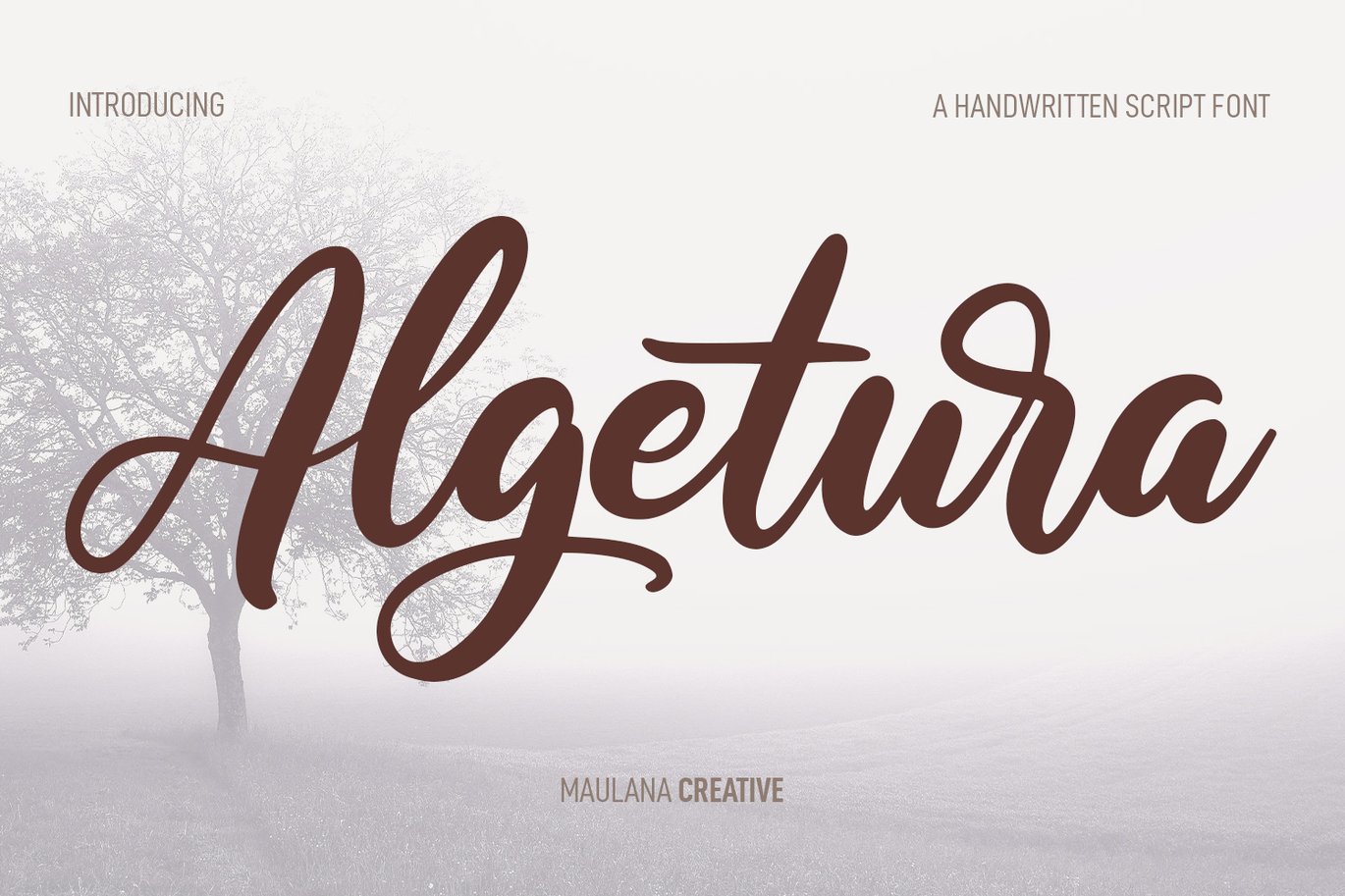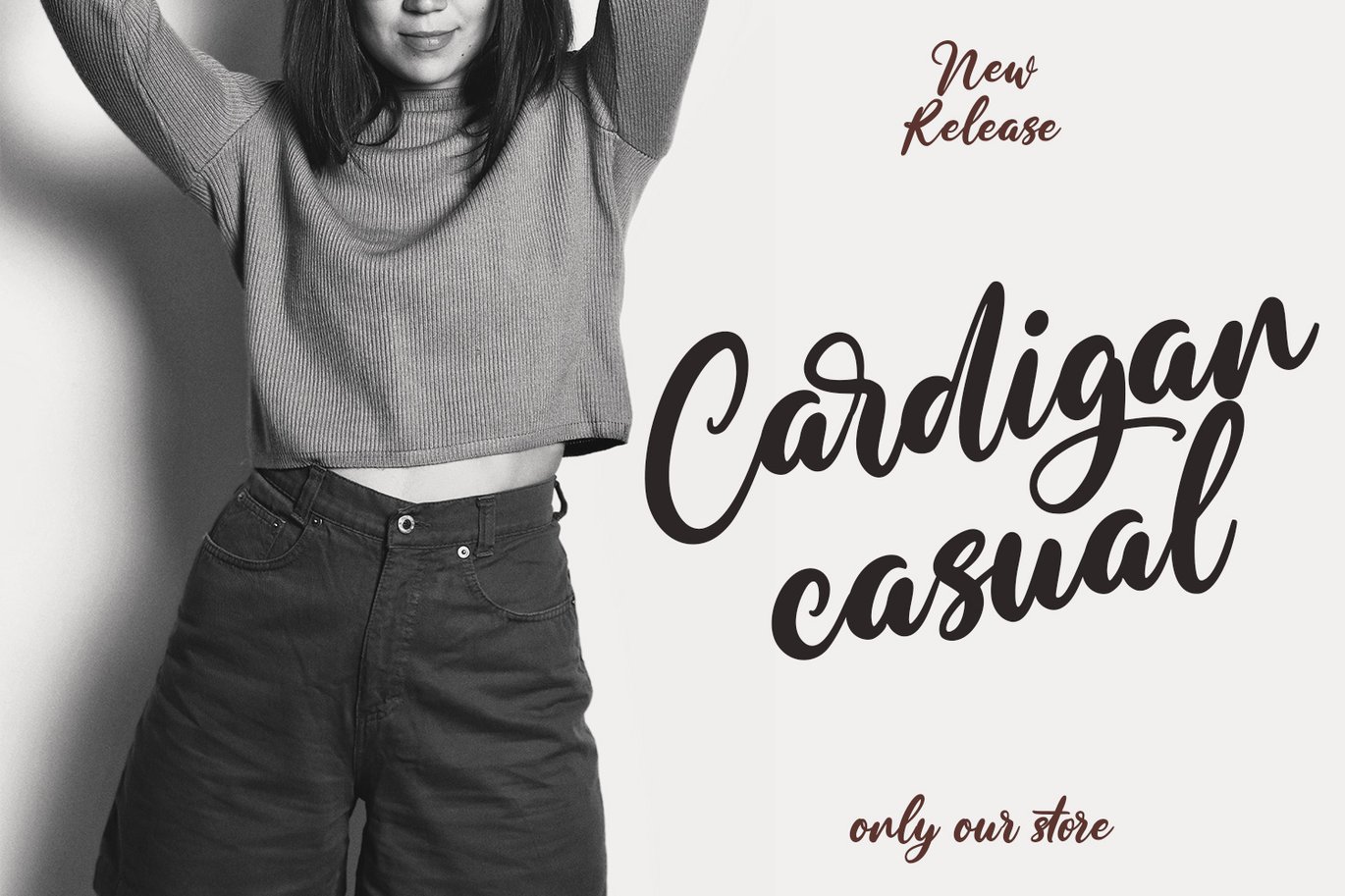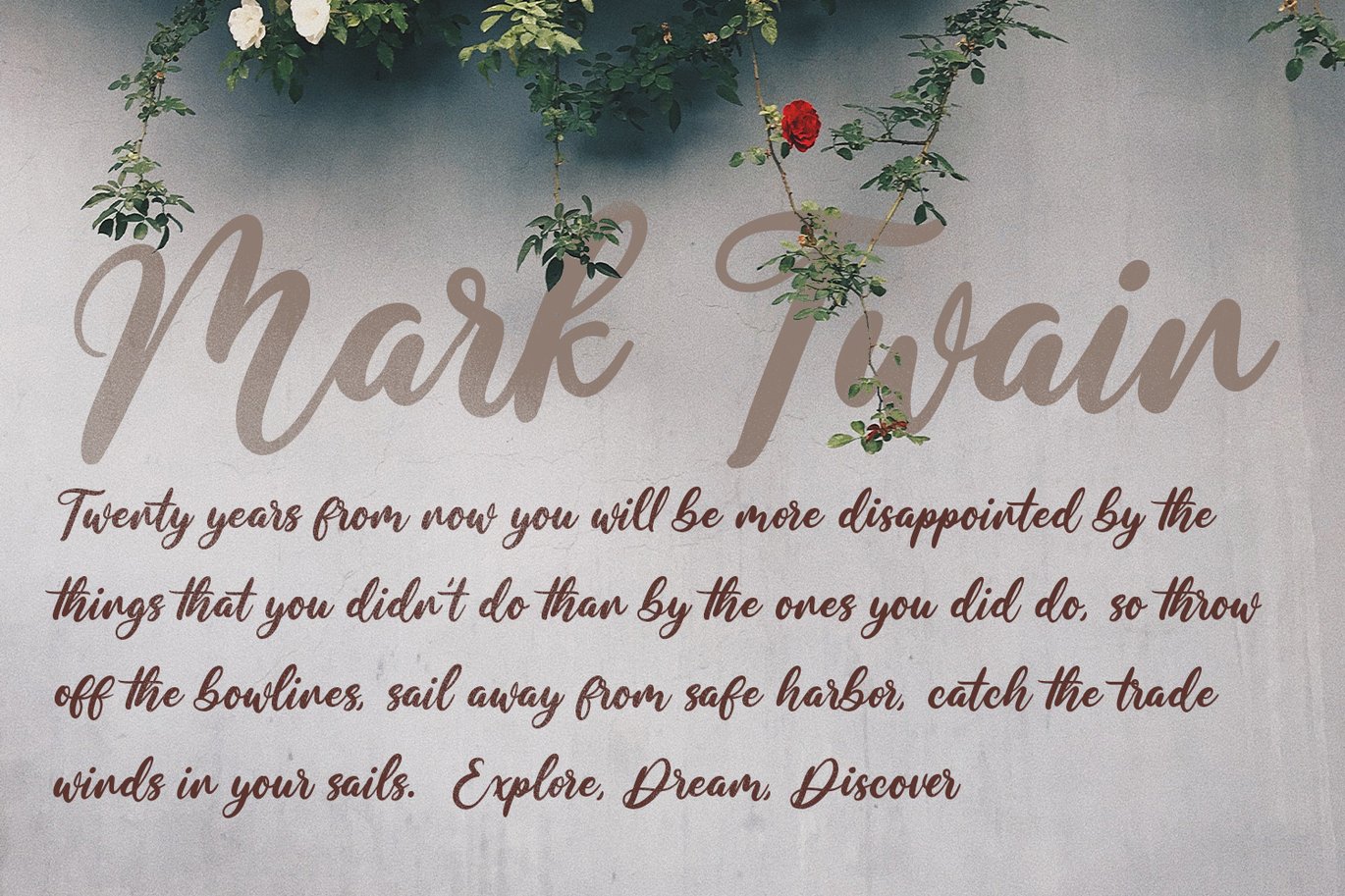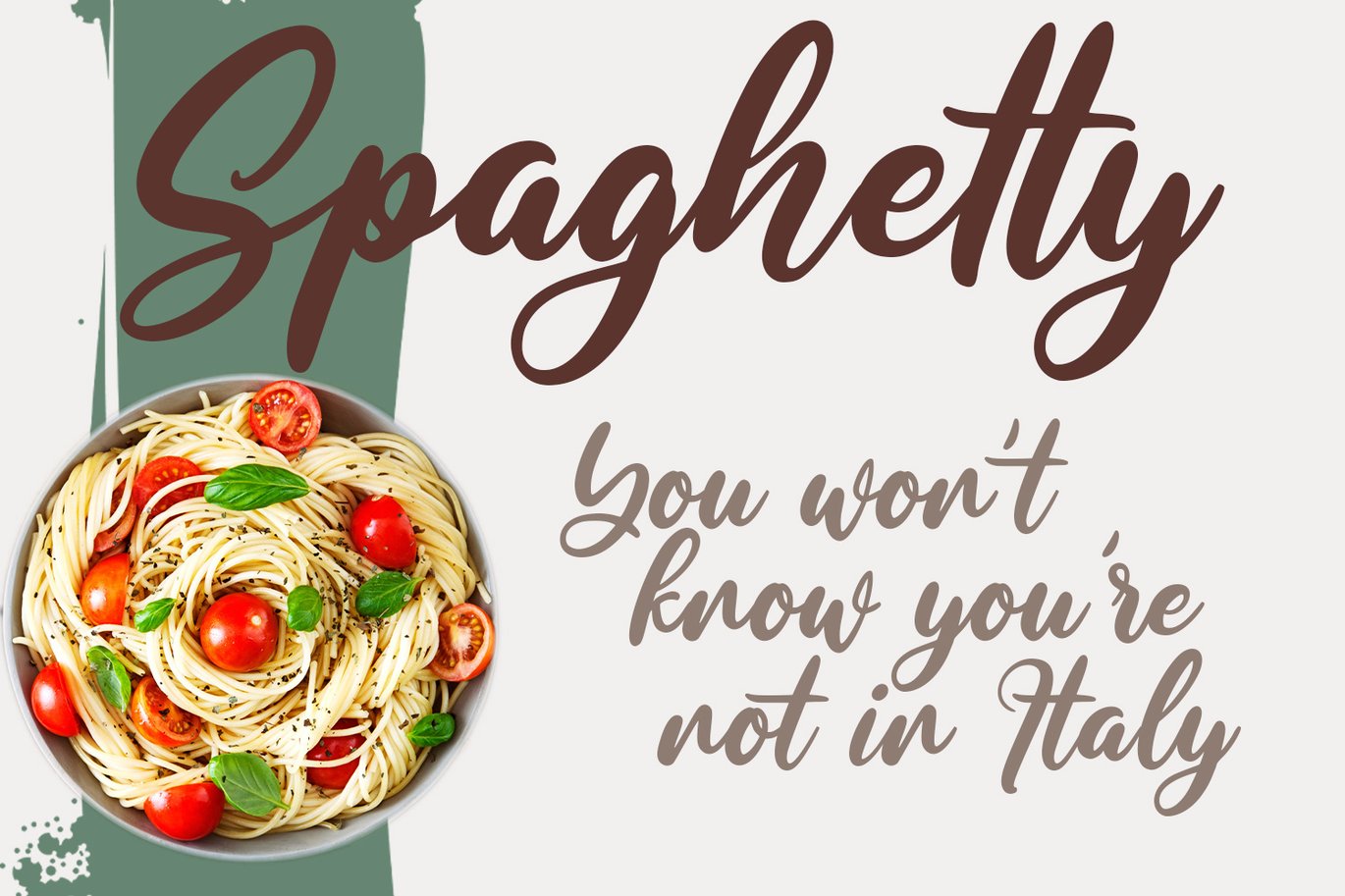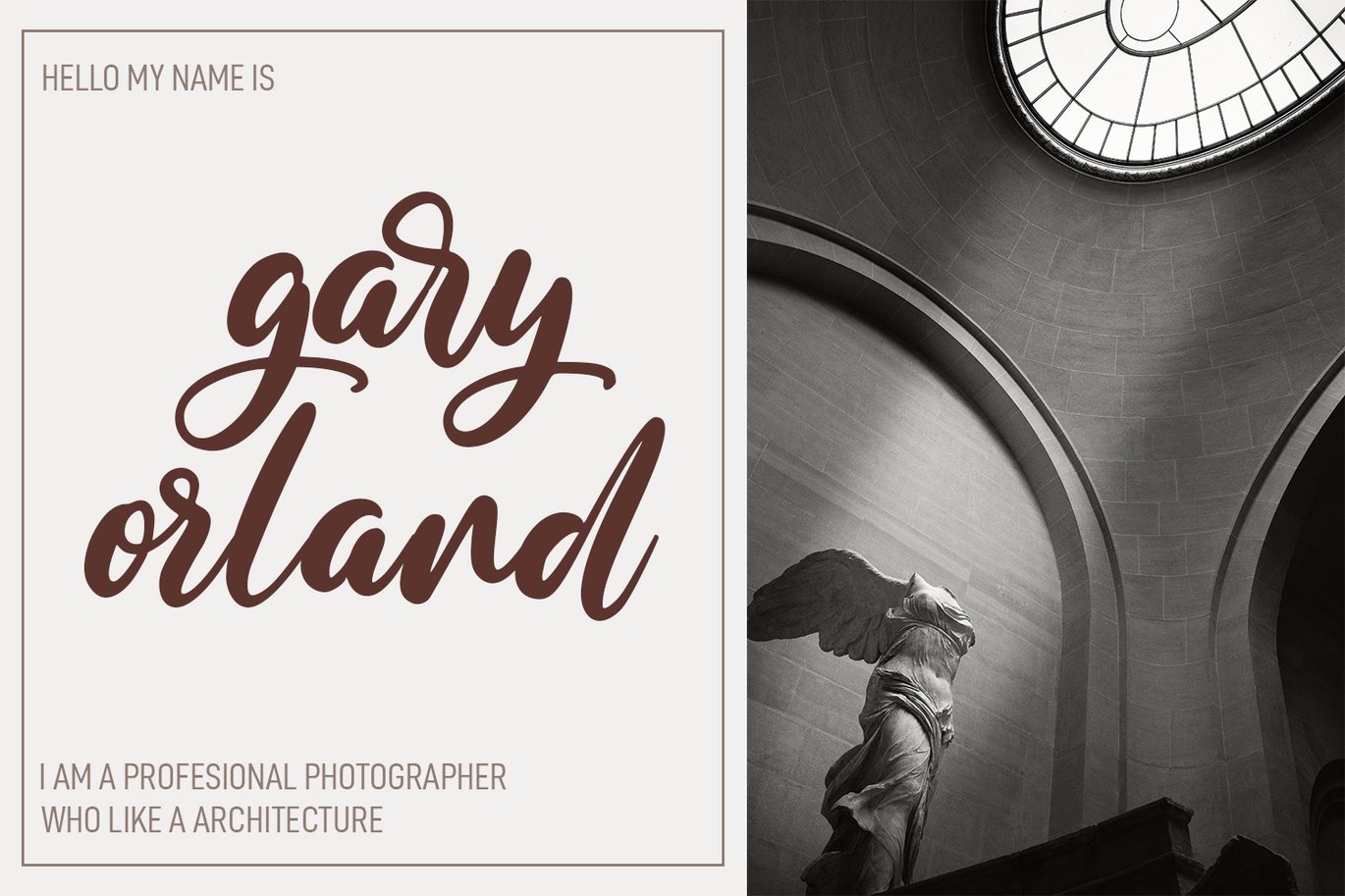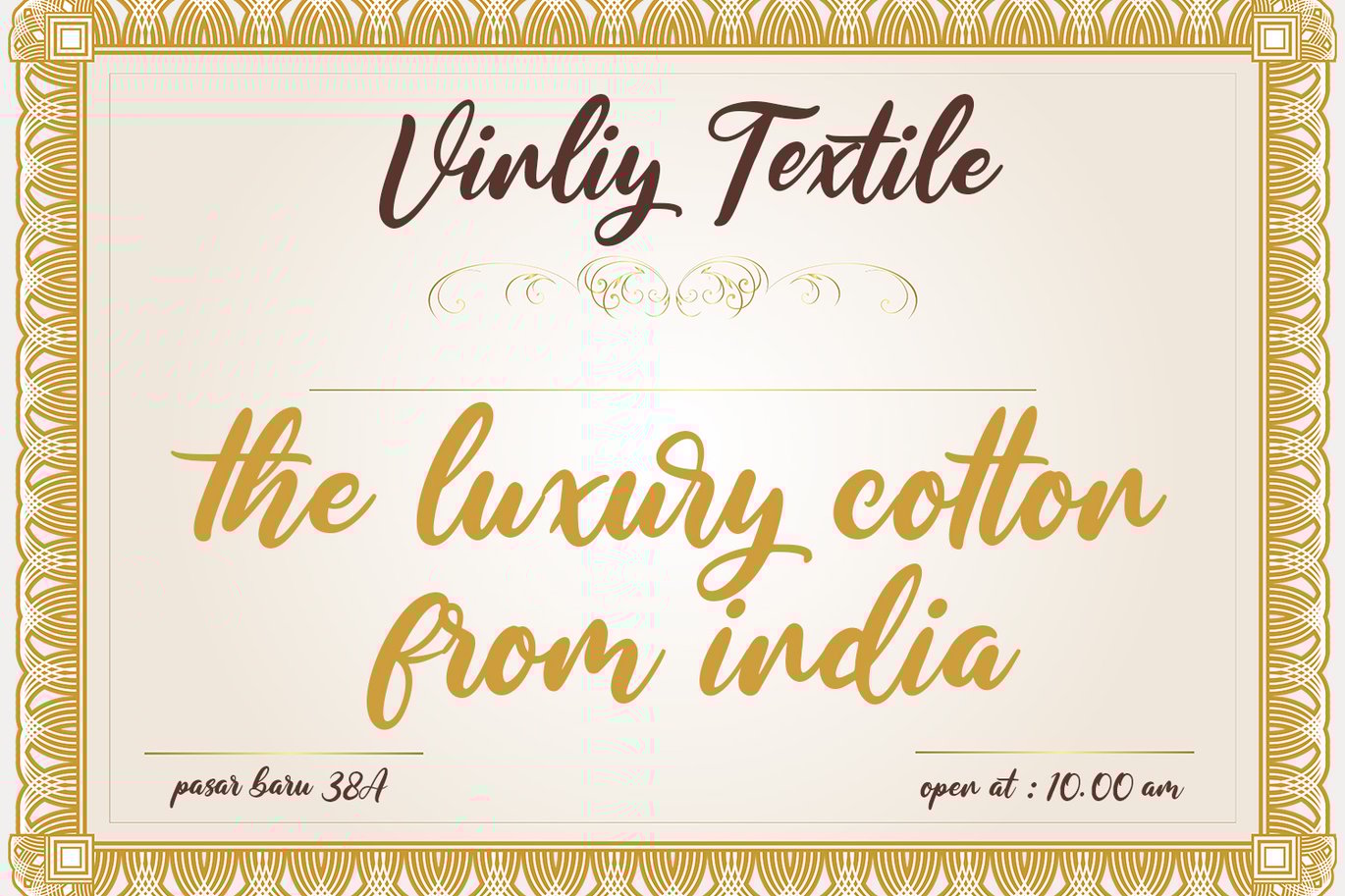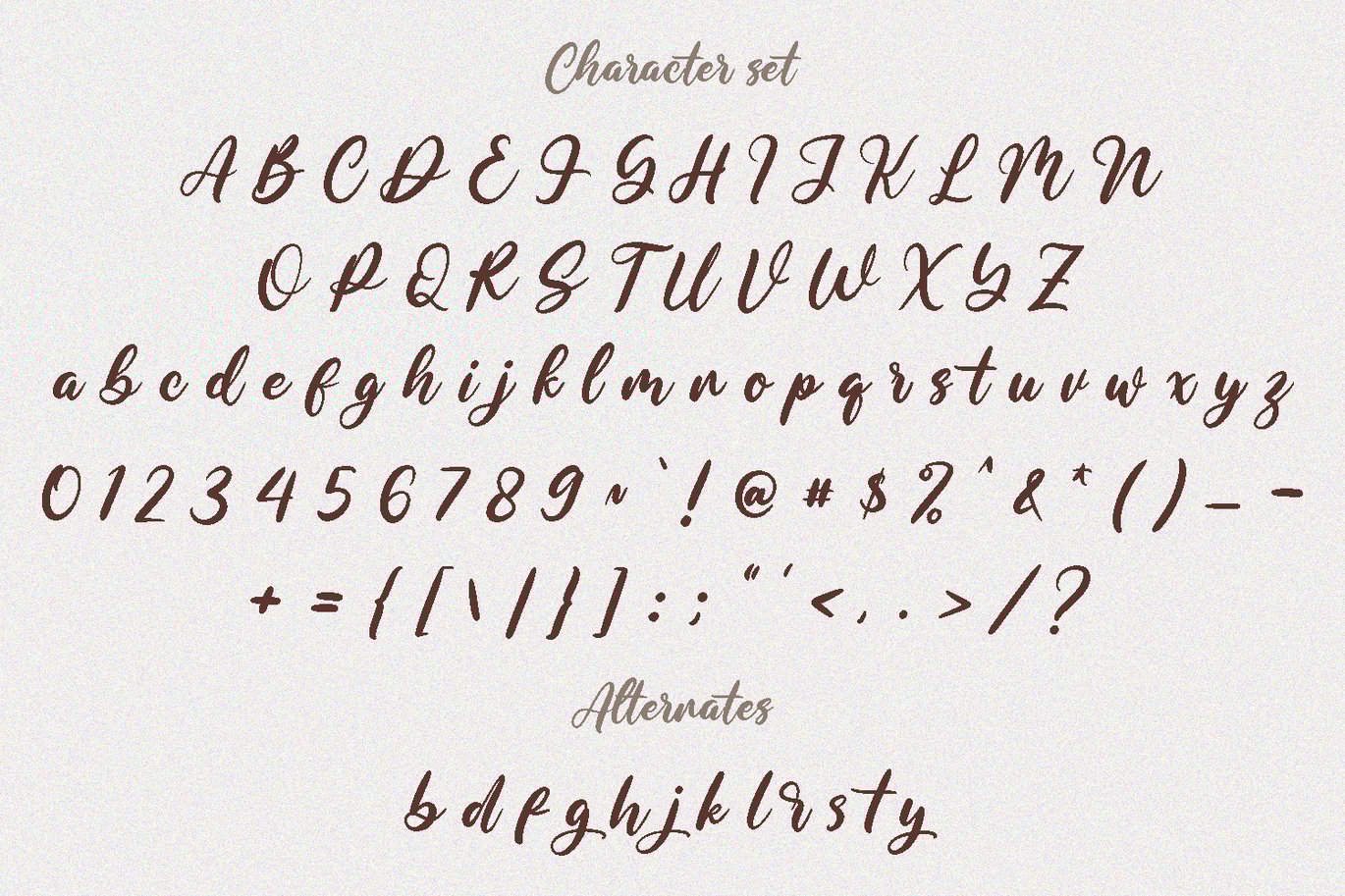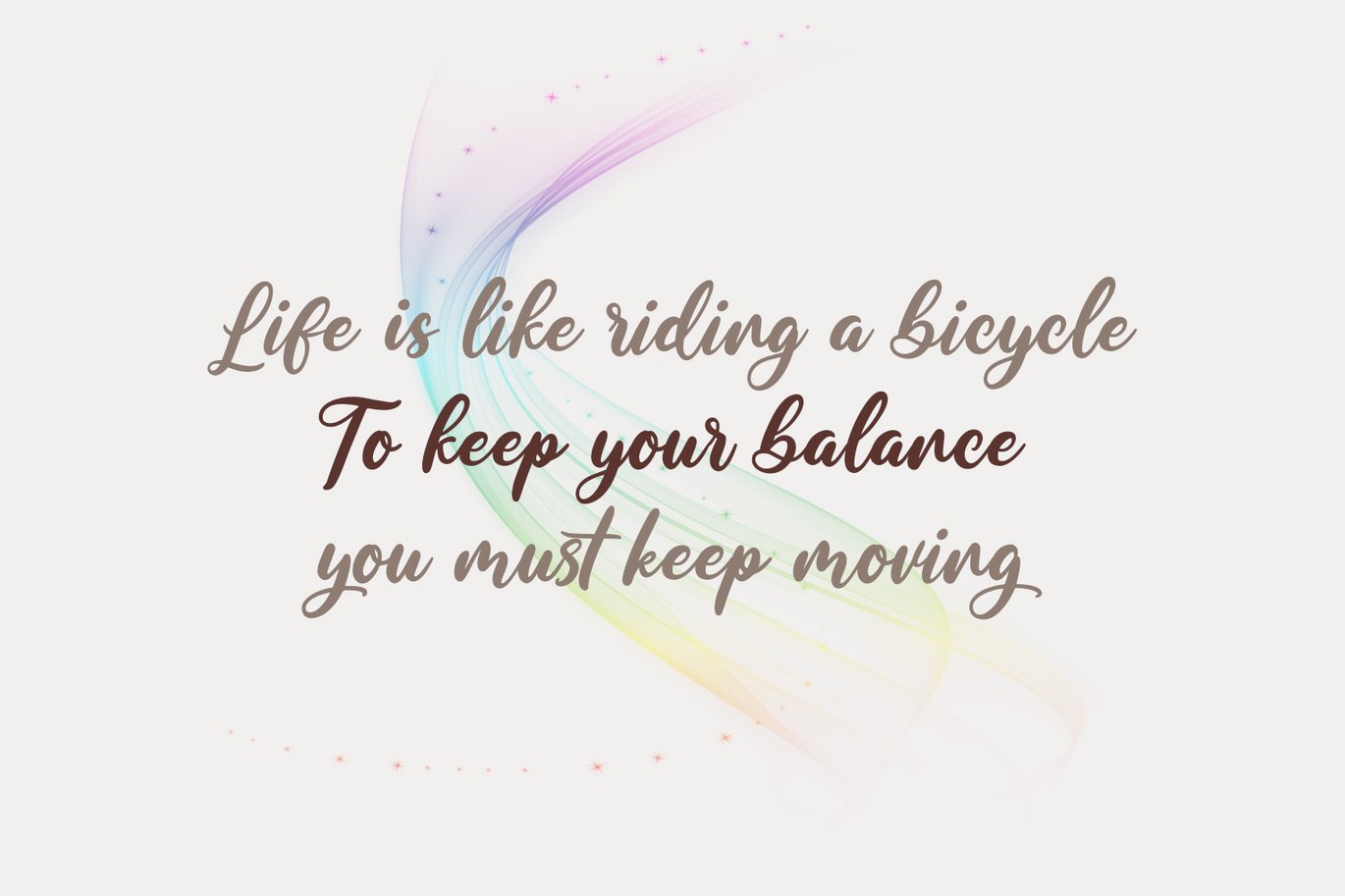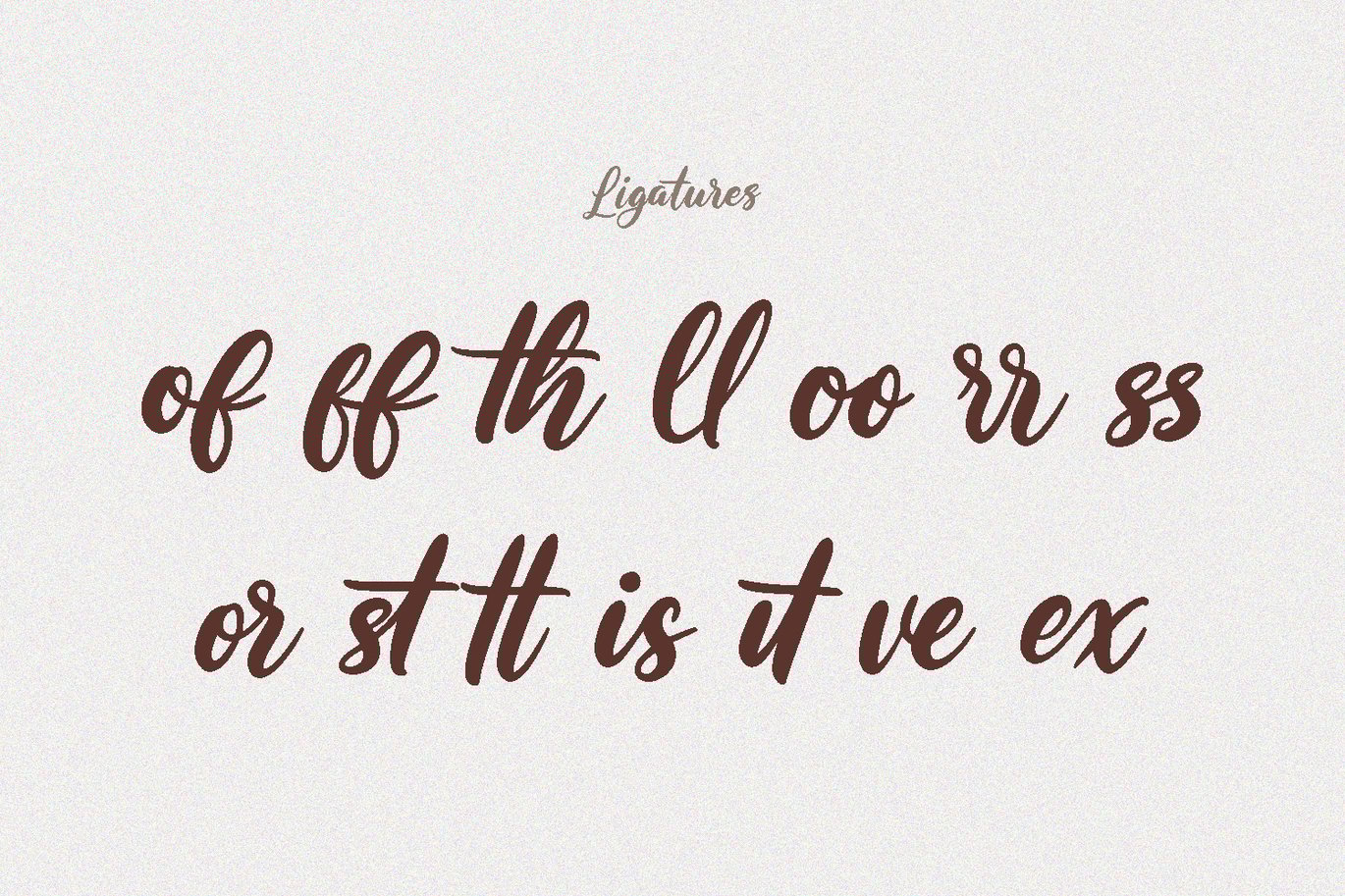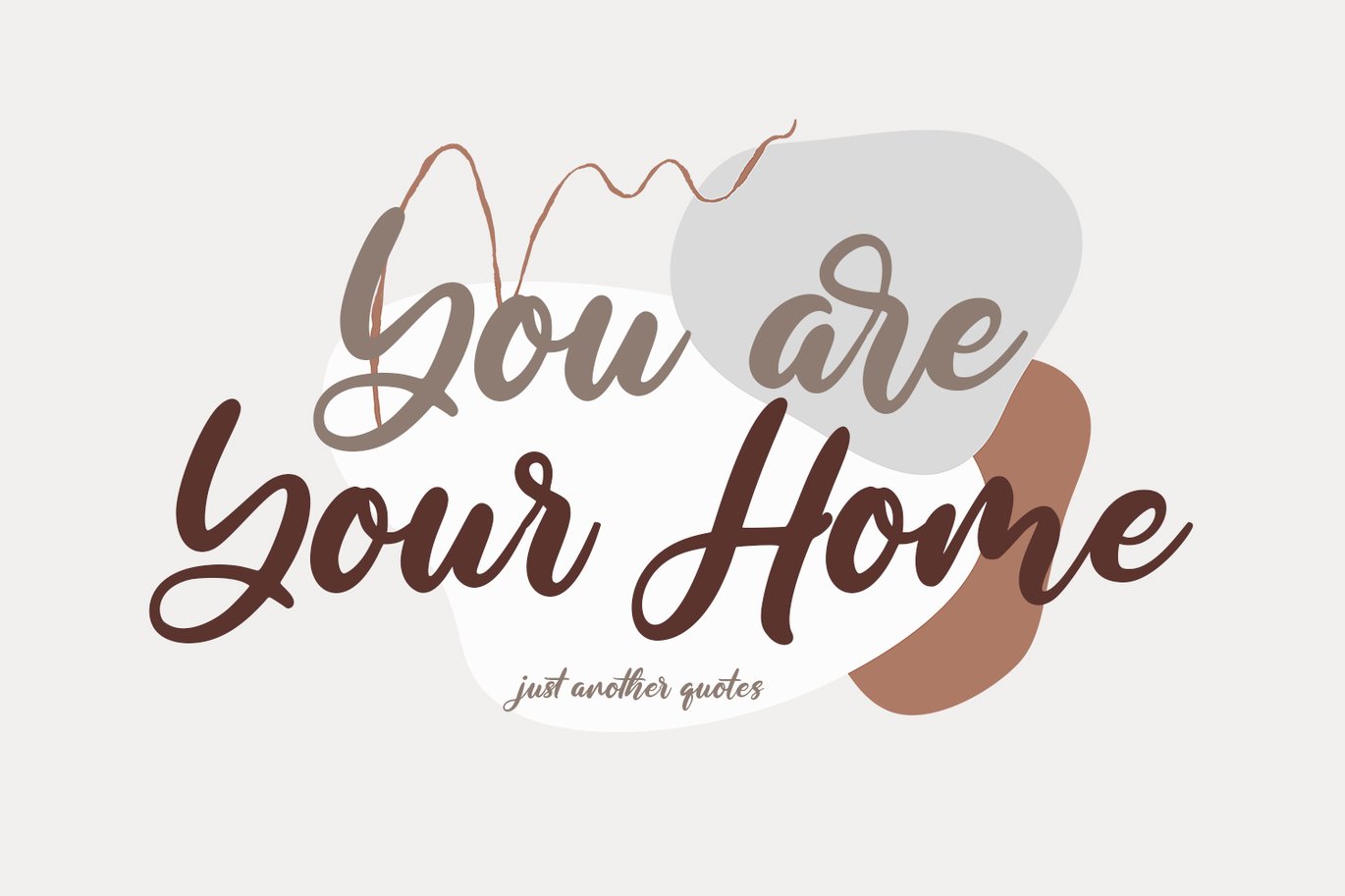
Algetura Cursive Script Font
Algetura is a casual cursive script font. With bold hi-contrast stroke, fun character with a bit of ligatures and alternates. To give you an extra creative work. Algetura font support multilingual more than 100+ language. This font is good for logo design, Social media, Movie Titles, Books Titles, a short text even a long text letter and good for your secondary text font with sans or serif. Make a stunning work with Algetura font.